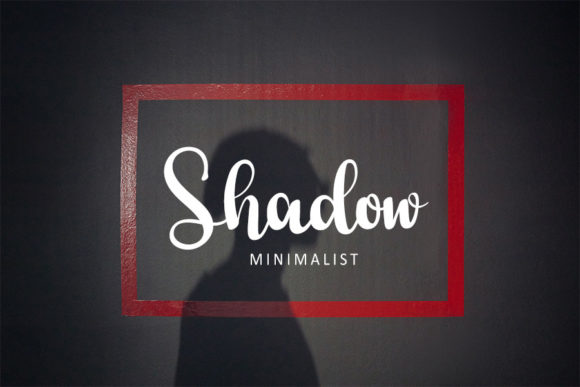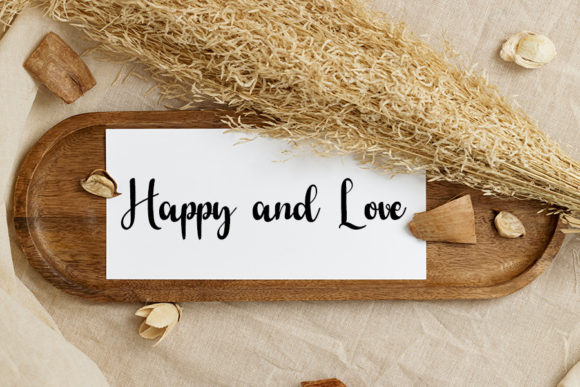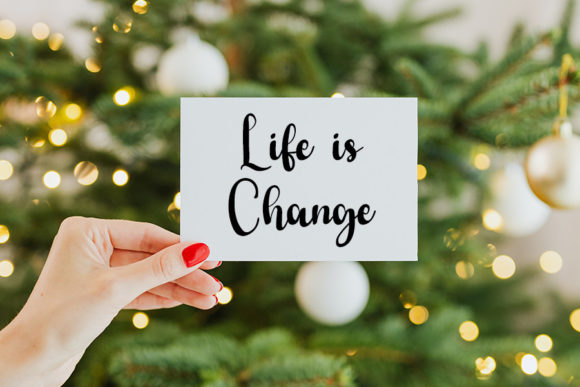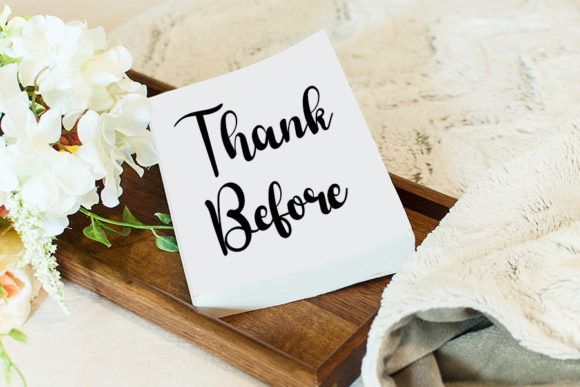
About Minimalist Font
Minimalist is an exquisite handwritten font that effortlessly elevates your work with its elegant and gracefully curved lines. Designed to captivate, this font is an ideal choice for a myriad of creative projects, including product packaging, branding initiatives, magazine covers, social media graphics, wedding materials, or any application where the goal is to express words above a background with style and sophistication.
The font’s charm lies in its minimalistic yet refined design, allowing it to seamlessly integrate into various design contexts. The handwritten quality adds a touch of warmth and personality, making Minimalist a versatile tool for projects that require a balance between simplicity and elegance.
In product packaging, Minimalist shines as it transforms labels and packaging materials into visually appealing masterpieces. Its elegant lines contribute to a clean and modern aesthetic, enhancing the overall presentation of the product. Whether applied to artisanal goods, cosmetics, or other consumer products, Minimalist adds a touch of sophistication that resonates with discerning consumers.
For branding projects, Minimalist proves to be a valuable asset. Its lovely handwritten style conveys a sense of authenticity and uniqueness, making it suitable for businesses and individuals looking to establish a distinct visual identity. Whether used in logos, promotional materials, or on digital platforms, the font adds a refined touch that sets the brand apart.
Magazine covers benefit from Minimalist’s ability to convey a sense of modernity and style. The font’s curvy lines bring a dynamic and eye-catching element to cover designs, making it an excellent choice for publications that seek to stand out on newsstands or in digital spaces. Its versatility allows it to adapt to different genres and themes, from fashion to lifestyle.
On social media, Minimalist adds a touch of elegance to graphics and posts. Whether used in quotes, announcements, or promotional materials, the font’s handwritten elegance attracts attention and enhances the visual appeal of content. Its versatility makes it suitable for various platforms, helping to maintain a consistent and stylish brand presence.
In wedding materials, Minimalist imparts a romantic and sophisticated vibe. From invitations to place cards, the font’s elegant lines contribute to a timeless aesthetic that complements the joyous occasion. Its ability to express words above a background with grace makes it an ideal choice for creating memorable and personalized wedding stationery.
In summary, Minimalist is more than just a font; it’s a design asset that brings elegance and style to a wide range of creative projects. With its lovely handwritten characteristics and versatility, Minimalist is poised to make your work stand out, adding a touch of sophistication to every application, from product packaging to social media graphics and beyond.